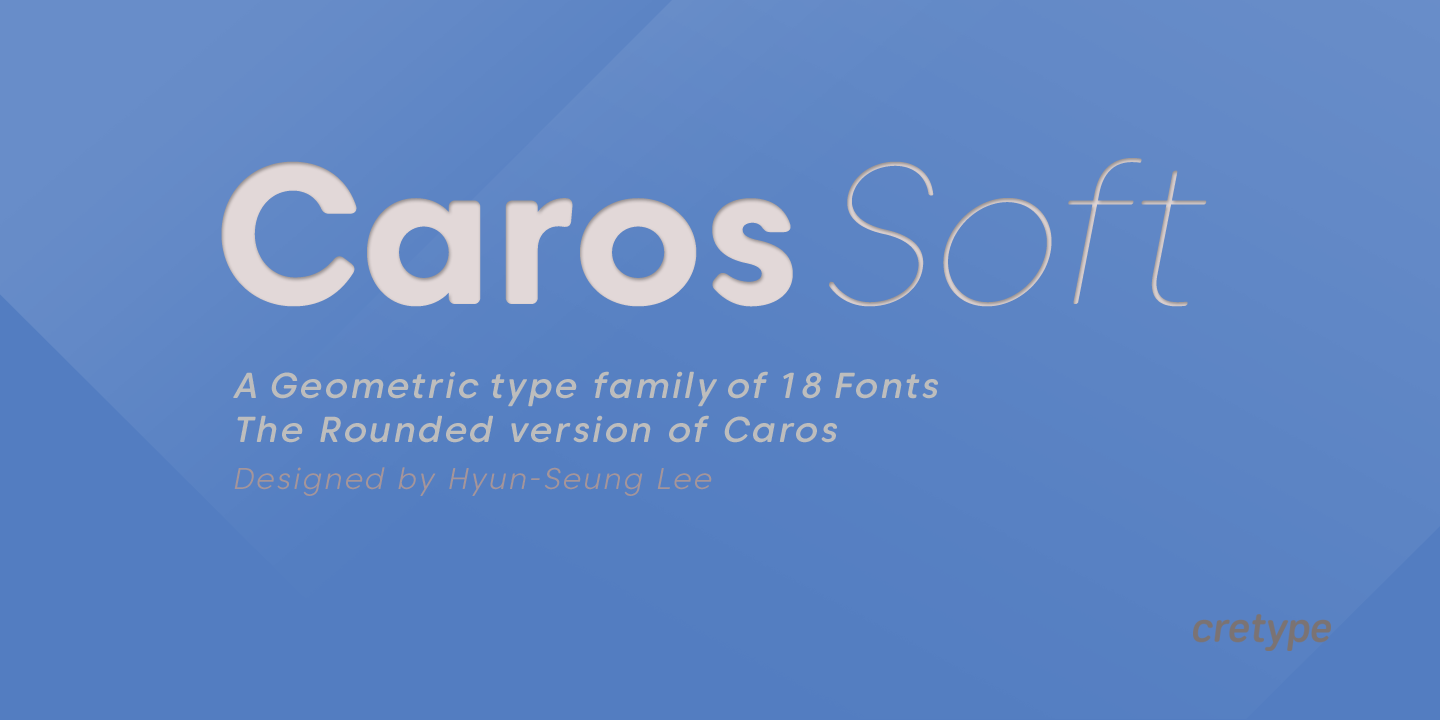
Caros Soft Font is a friendly and approachable sans-serif typeface with smooth, rounded edges that bring warmth and softness to your designs. Ideal for branding, user interfaces, packaging, and advertising, this font combines modernity with a welcoming feel.
What makes Caros Soft Font Free Download so exciting is its ability to convey professionalism without losing its gentle, human touch, making it perfect for businesses aiming to connect authentically with their audience.
The Caros Soft Font family typically includes multiple weights and styles, such as Light, Regular, Bold, and Italic, offering flexibility to craft clear and engaging typographic hierarchies.
Whether you're designing websites, product labels, or promotional materials, Caros Soft Font Free Download adds a polished yet friendly vibe that helps your projects stand out with charm.